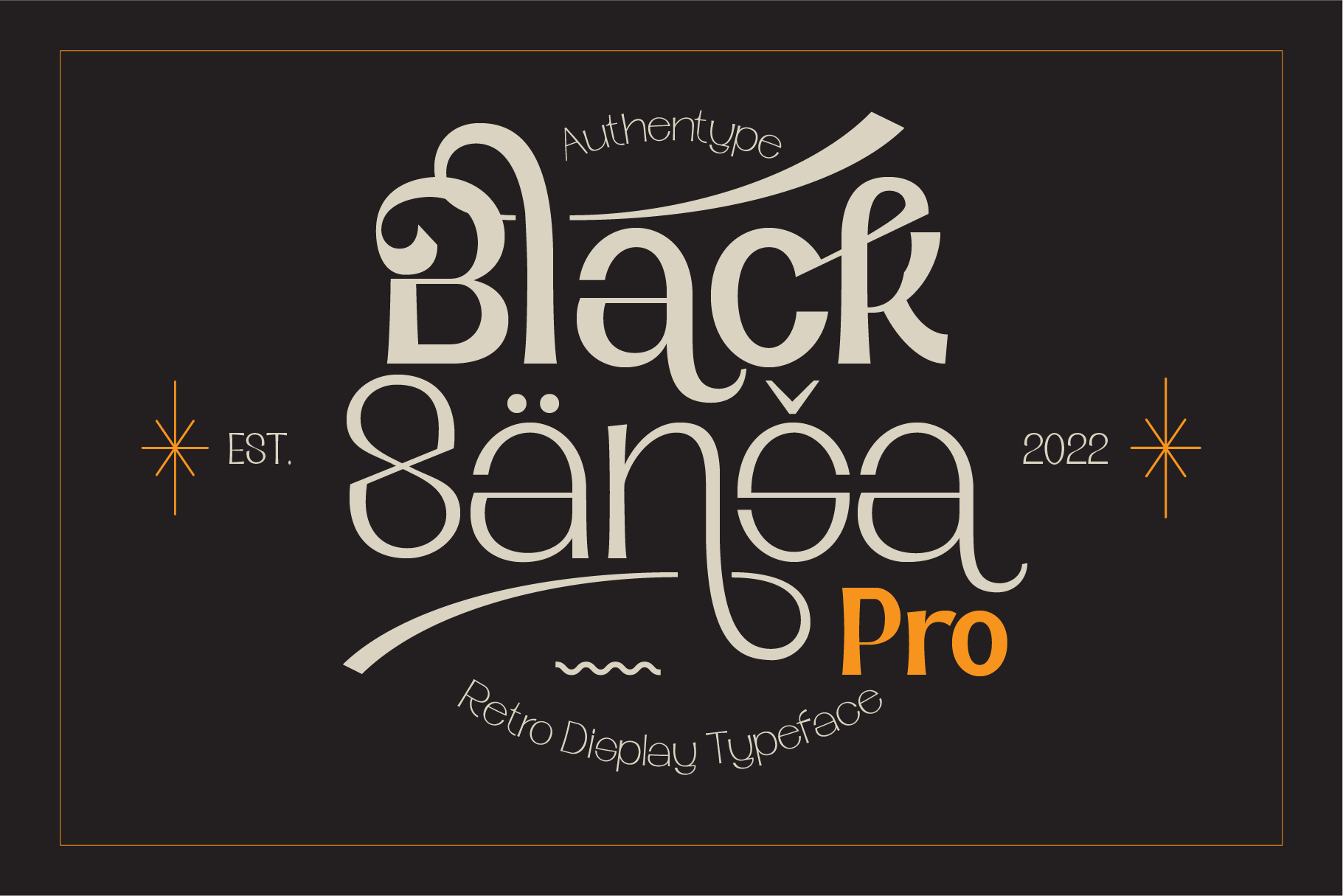
Black Sansa Pro - Retro Display Font
Black Sansa Pro - Retro display font with a full set of uppercase and lowercase letters, multilingual symbols, numbers, punctuation, stylistic set, and ligatures. Black Sansa Pro retro display font style for retro poster, magazine, retro beauty branding design in vintage style suitable for your retro design concept.